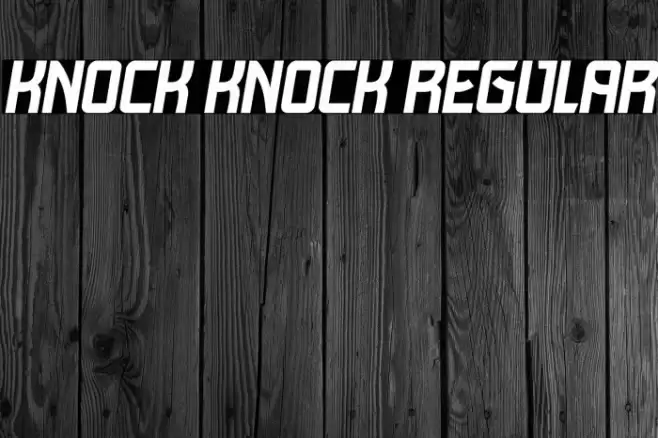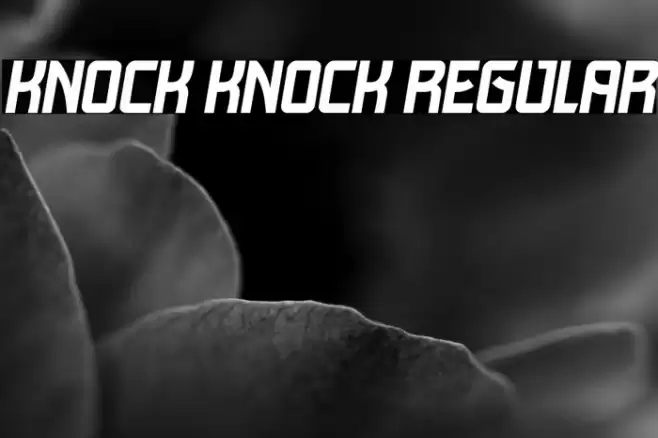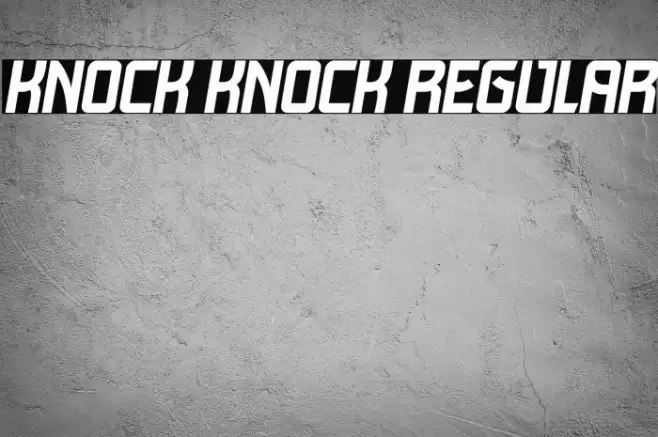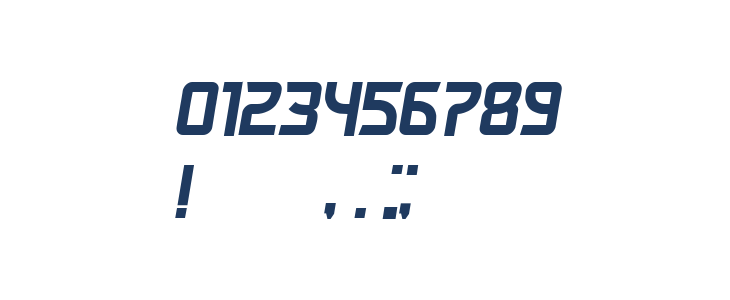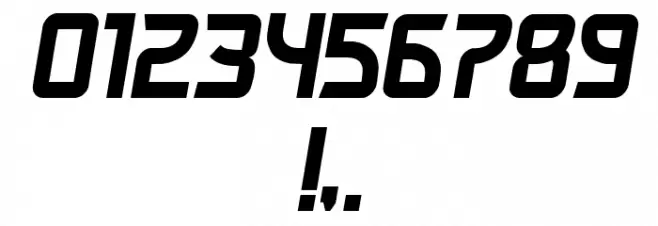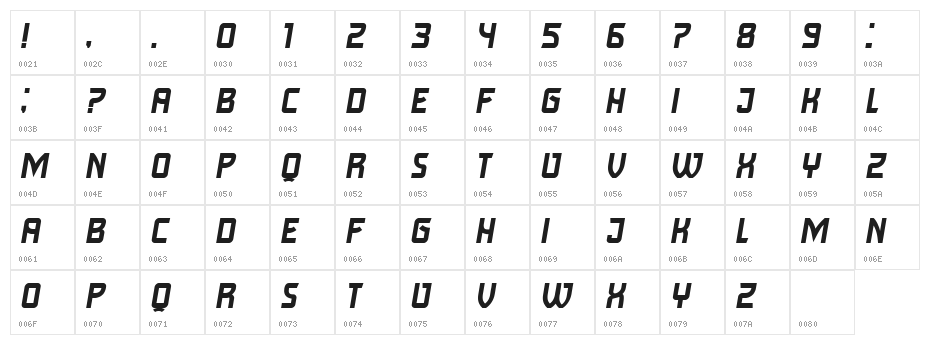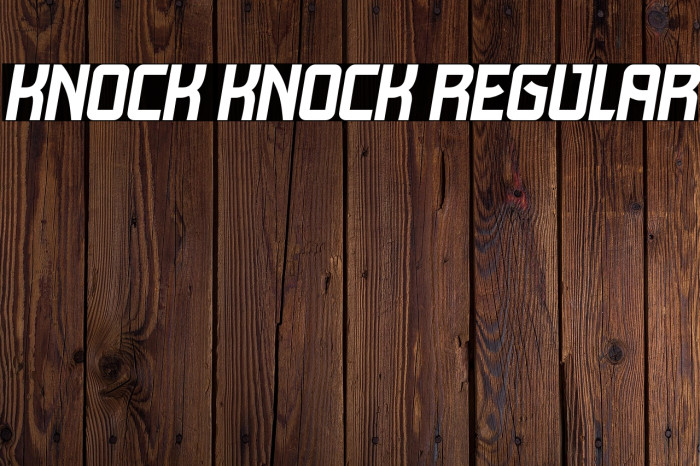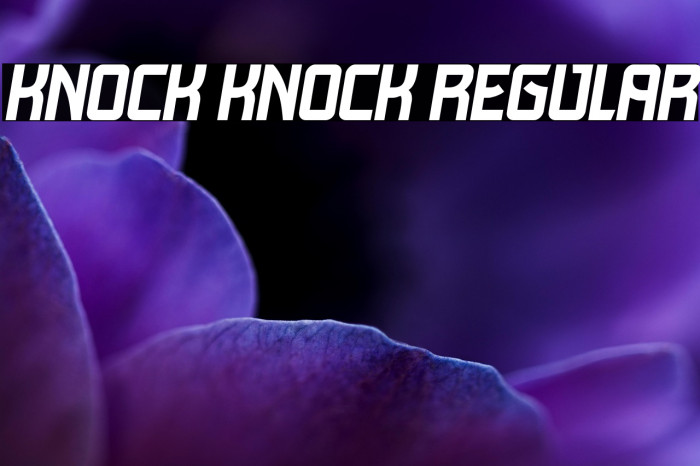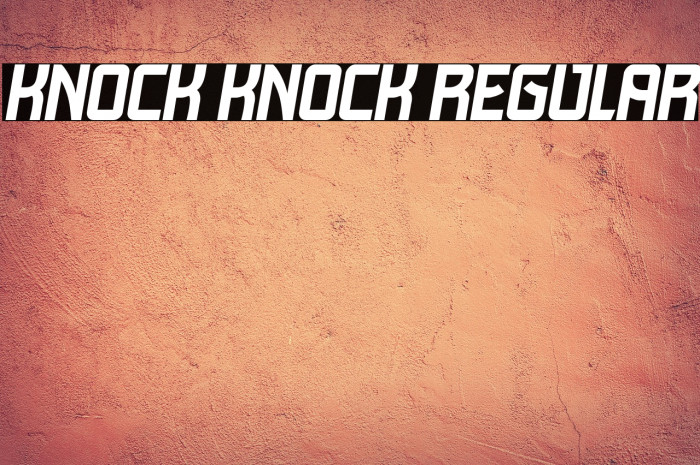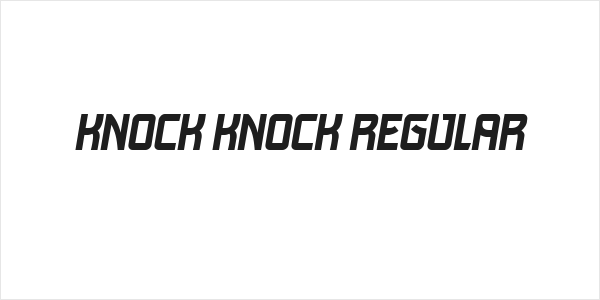
Knock Knock Regular Font
Knock Knock Regular Description
This font features a bold and dynamic style with a modern twist. The characters are slightly slanted, giving a sense of movement and energy. The strokes are thick and consistent, providing a strong visual impact. The design includes unique angular cuts and edges, adding a futuristic feel. The uppercase and lowercase letters maintain a uniform appearance, while the numerals and special characters are crafted to match the overall aesthetic. This font is ideal for projects that require a bold statement, combining readability with a distinctive look.
A bold, dynamic font with angular cuts and a modern, energetic style from Regular fonts.
- Proposed Projects: Ideal for sports branding, tech logos, dynamic posters, and modern advertising campaigns.